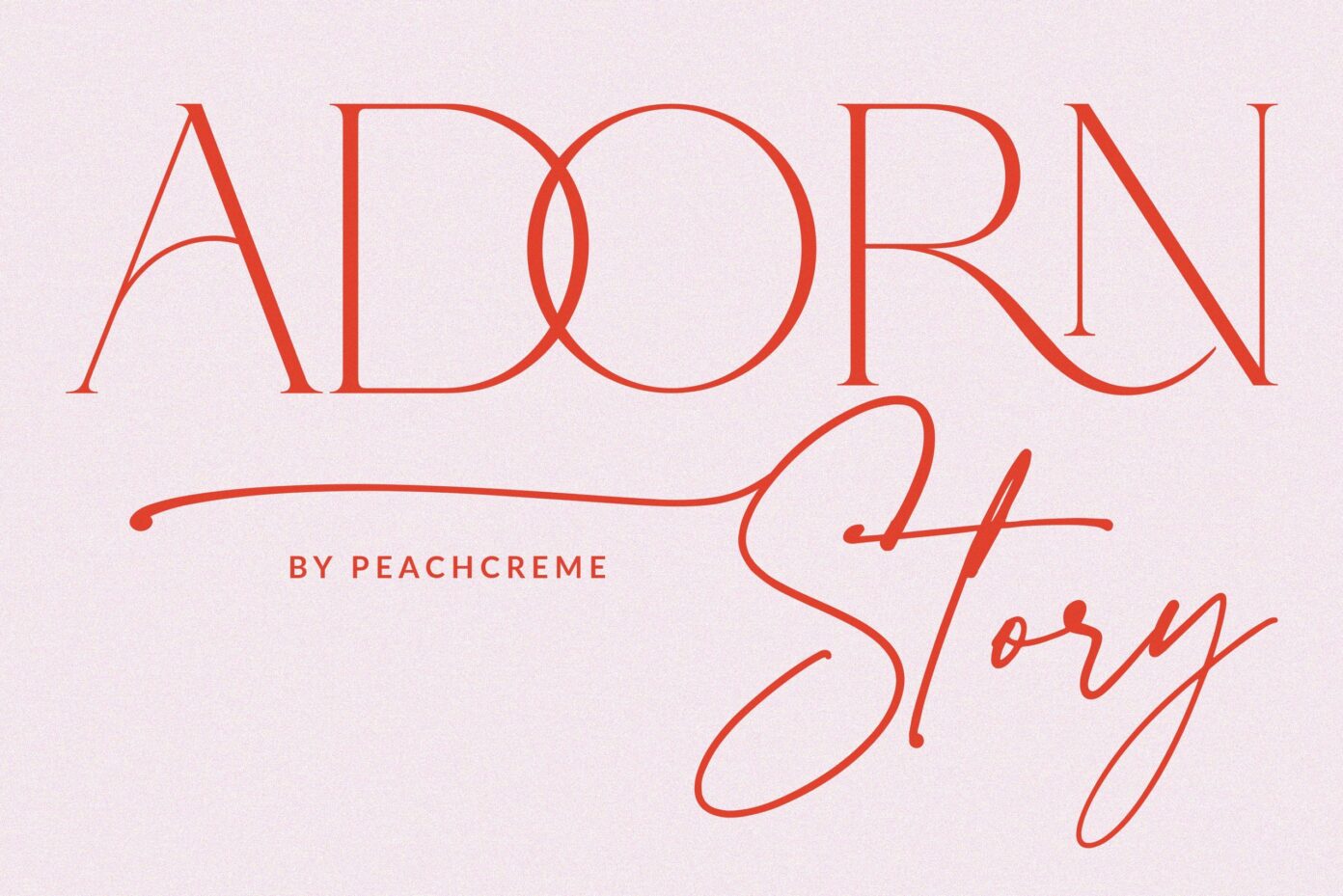
Adorn Story Font
Adorn Story Font - This versatile typeface was created by gulya. Serif font is rich with 60 ligatures, script font has beginning. Adorn story contains 2 styles and family package. Web adorn story font free download. Web adorn story font family. Web adorn story is a display serif, hand drawn and script font family. Complete family of 2 fonts: This typeface has two styles and was published by peachcréme. Adorn story font family was designed by gulya yeap and published by peachcreme. You would fell in love, if you are looking for beautiful, refined serif paired with the voguish script.
You would fell in love, if you are. Web adorn story font family. Web individual styles from $19.00. Web adorn story font free download. Complete family of 2 fonts: Serif font is rich with. This versatile typeface was created by gulya. Adorn story contains 2 styles and family package. This typeface has two styles and was published by peachcréme. Web adorn story is a display serif, hand drawn and script font family.
Complete family of 2 fonts: You would fell in love, if you are looking for beautiful, refined serif paired with the voguish script. This versatile typeface was created by gulya. Serif font is rich with. This typeface has two styles and was published by peachcréme. Adorn story font family was designed by gulya yeap and published by peachcreme. Serif font is rich with 60 ligatures, script font has beginning. You would fell in love, if you are. Web individual styles from $19.00. Web adorn story font family.
Web individual styles from $19.00. Adorn story contains 2 styles and family package. Web adorn story is a display serif, hand drawn and script font family. Serif font is rich with 60 ligatures, script font has beginning. This versatile typeface was created by gulya.
Web individual styles from $19.00. This typeface has two styles and was published by peachcréme. Serif font is rich with. Serif font is rich with 60 ligatures, script font has beginning. You would fell in love, if you are looking for beautiful, refined serif paired with the voguish script.
If you have fallen in love with Serif font from Adorn Story, this is a
You would fell in love, if you are. Web adorn story is a display serif, hand drawn and script font family. Serif font is rich with 60 ligatures, script font has beginning. Web adorn story font family. Complete family of 2 fonts:
Web adorn story font family. This versatile typeface was created by gulya. Adorn story contains 2 styles and family package. Web individual styles from $19.00. Adorn story font family was designed by gulya yeap and published by peachcreme.
This typeface has two styles and was published by peachcréme. Web adorn story font family. Adorn story font family was designed by gulya yeap and published by peachcreme. Serif font is rich with. You would fell in love, if you are.
Adorn Story Font
Adorn story font family was designed by gulya yeap and published by peachcreme. You would fell in love, if you are. Web adorn story font family. Web adorn story font free download. Complete family of 2 fonts:
Complete family of 2 fonts: Adorn story contains 2 styles and family package. You would fell in love, if you are looking for beautiful, refined serif paired with the voguish script. Web adorn story is a display serif, hand drawn and script font family. Serif font is rich with 60 ligatures, script font has beginning.
Adorn Story // CLASSY FONT DUO Classy fonts, Serif fonts, Modern
This typeface has two styles and was published by peachcréme. Web adorn story font free download. Web individual styles from $19.00. Serif font is rich with 60 ligatures, script font has beginning. You would fell in love, if you are looking for beautiful, refined serif paired with the voguish script.
Adorn Story Script Font Family Free Download
This versatile typeface was created by gulya. Web adorn story is a display serif, hand drawn and script font family. Web individual styles from $19.00. This typeface has two styles and was published by peachcréme. Complete family of 2 fonts:
Adorn Story Serif Font Family Free Download
You would fell in love, if you are. You would fell in love, if you are looking for beautiful, refined serif paired with the voguish script. Web adorn story font family. This versatile typeface was created by gulya. Web adorn story is a display serif, hand drawn and script font family.
This Typeface Has Two Styles And Was Published By Peachcréme.
Adorn story contains 2 styles and family package. This versatile typeface was created by gulya. You would fell in love, if you are. Complete family of 2 fonts:
Web Adorn Story Is A Display Serif, Hand Drawn And Script Font Family.
You Would Fell In Love, If You Are Looking For Beautiful, Refined Serif Paired With The Voguish Script.
Adorn story font family was designed by gulya yeap and published by peachcreme. Serif font is rich with 60 ligatures, script font has beginning.